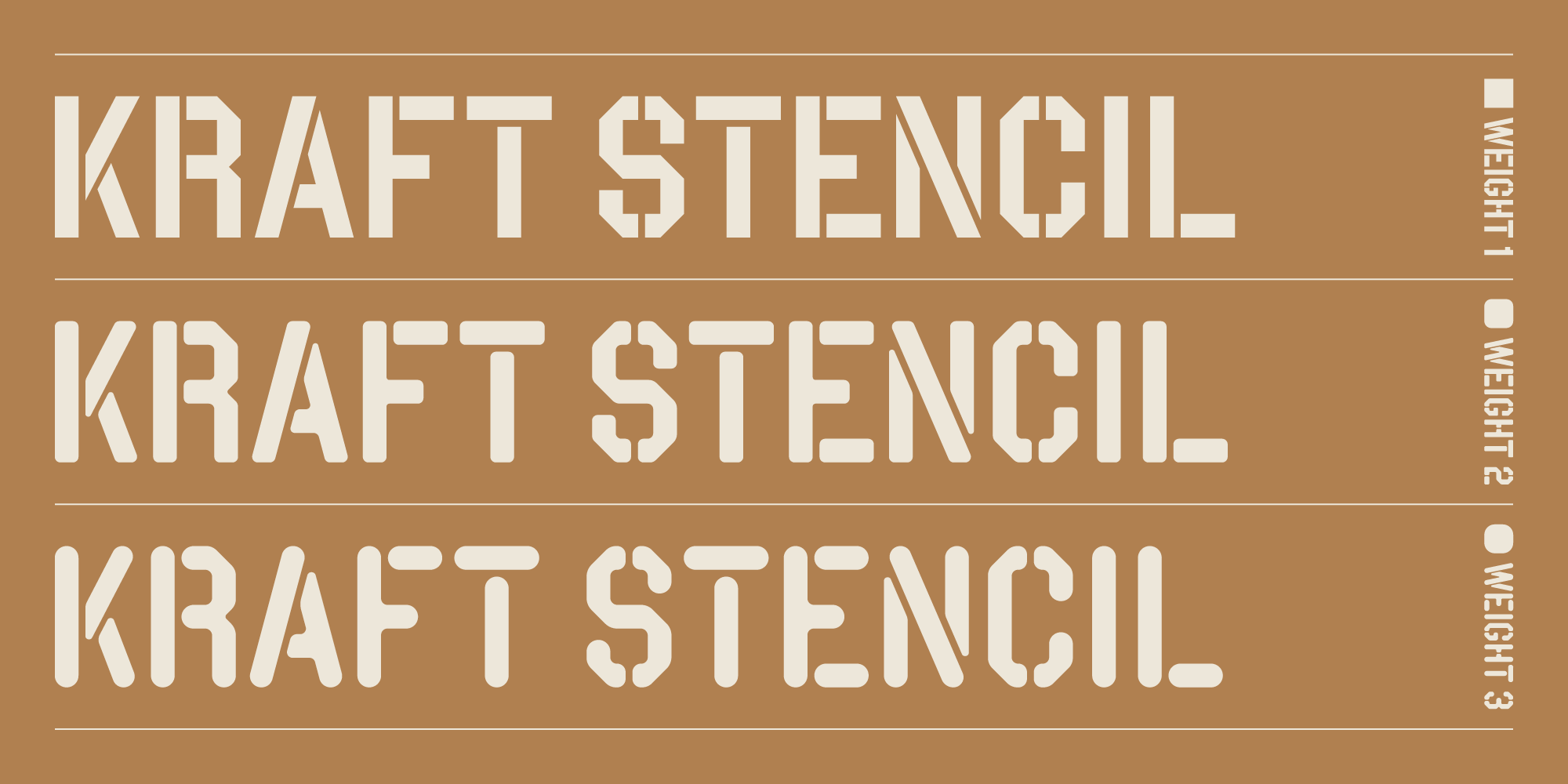
Kraft Stencil Font is a bold and industrial typeface that brings a powerful, utilitarian aesthetic to any design. It's perfectly suited for projects that demand a strong, clear, and impactful presence, such as urban branding, military-inspired designs, heavy machinery labeling, and striking protest signs. Imagine Kraft Stencil Font adorning the side of a shipping container, adding a rugged authenticity to a workwear brand's logo, or providing a no-nonsense voice for a construction company's advertisements. Its cut-out letterforms and robust structure ensure your message is conveyed with both precision and an undeniable sense of strength, making it ideal for designs that aim for raw power and directness.
What makes Kraft Stencil Font truly exciting is its ability to instantly convey a sense of practicality and unyielding durability. This font is designed to command attention, making it ideal for headlines and titles where a bold visual impact is crucial. The unique design of its letterforms, with their characteristic breaks, contributes to its distinctive and memorable personality. It’s more than just a typeface; it’s a strategic design element that imbues your content with a sense of resilience and an unforgettable presence. Kraft Stencil Font stands out for its bold versatility and its capacity to elevate any design with its assertive and impactful aesthetic.
Kraft Stencil Font typically functions as a display font, meaning its primary strength lies in headlines, logos, and short bursts of text where its unique characteristics can truly shine. While it may not feature an extensive range of weights or styles like a comprehensive text family, its impact comes from its singular, powerful design. It often includes a standard set of uppercase letters, numbers, and basic punctuation, with its distinct stylistic elements being the main draw. This focused approach means that the Kraft Stencil Font Free Download is an invaluable asset for creating eye-catching and memorable design elements that instantly communicate a powerful and striking theme, setting your work apart.